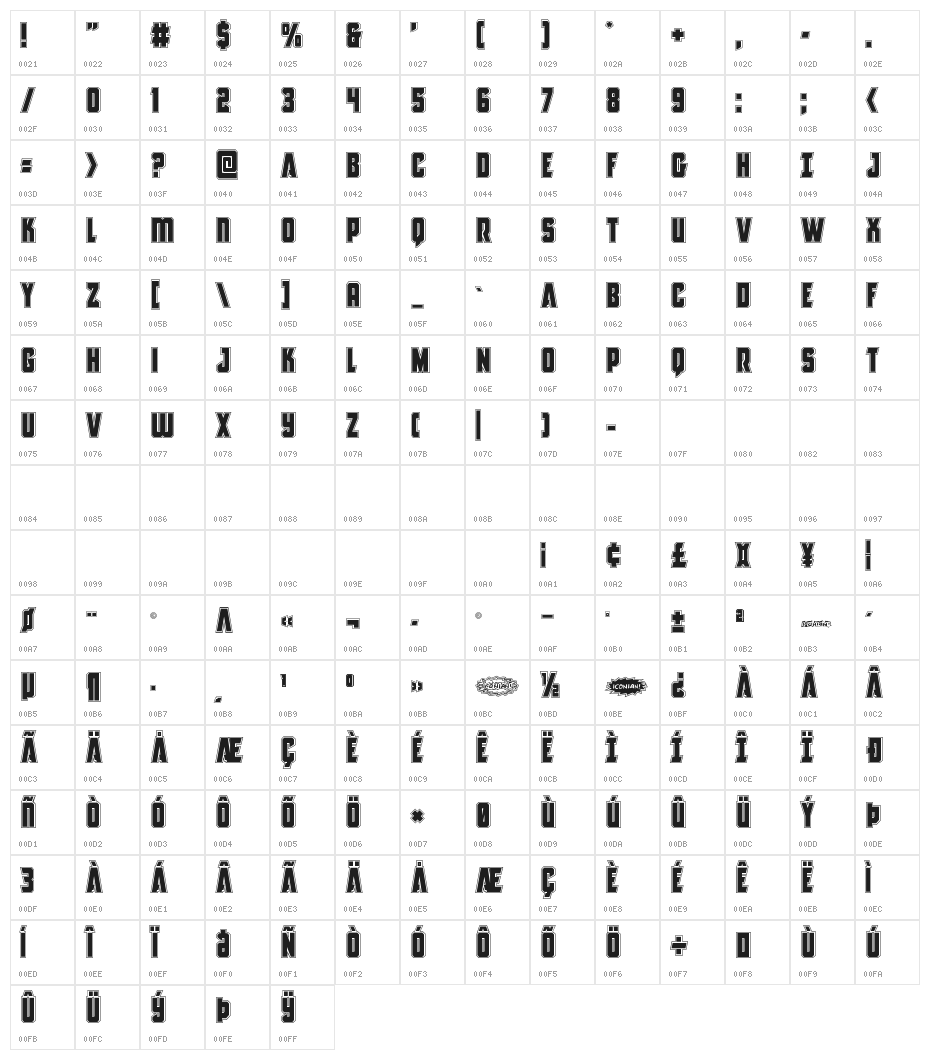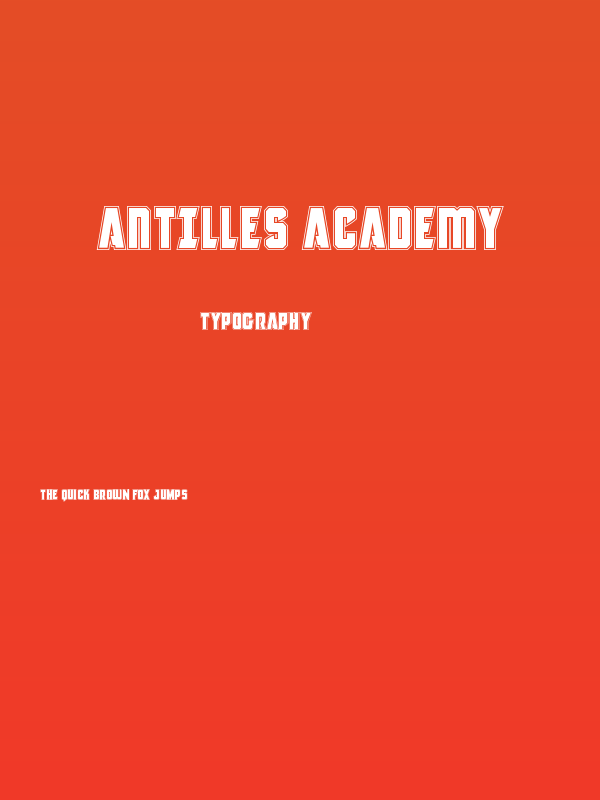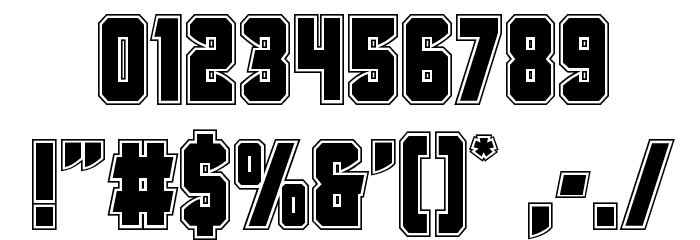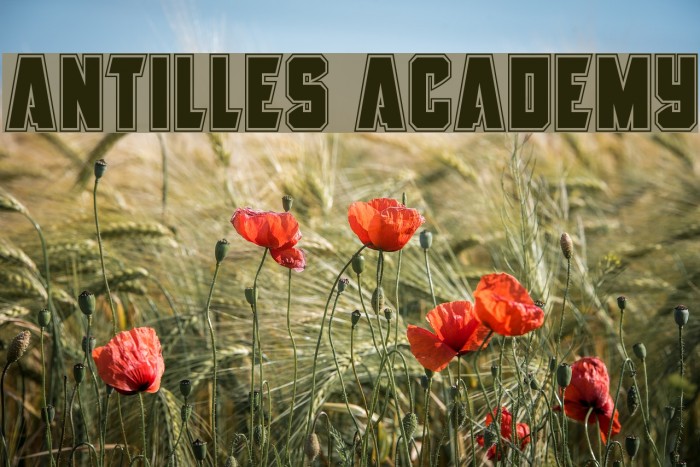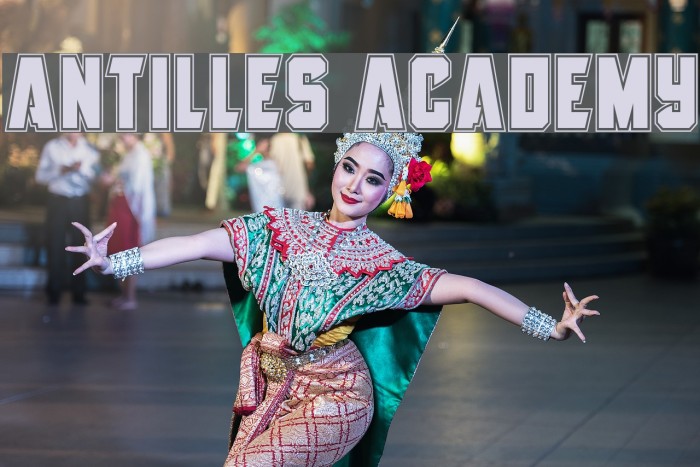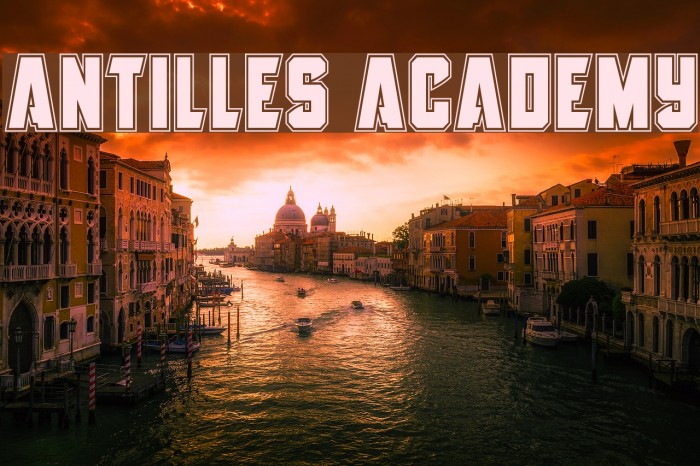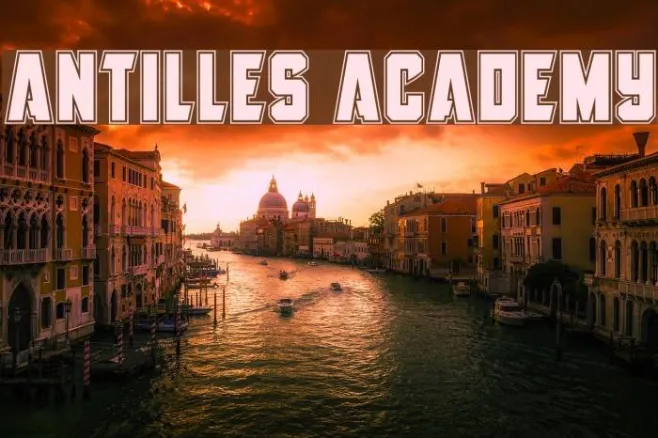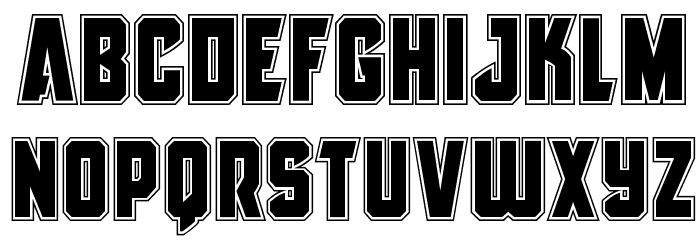
Antilles Academy Font
Antilles Academy Description
This font features a bold, impactful design with a strong presence. The characters are outlined with a thick border, giving them a three-dimensional appearance that stands out. The angular and geometric shapes of the letters convey a sense of strength and modernity, making it ideal for projects that require a commanding visual element. The uppercase letters are particularly striking, with consistent height and width that ensure readability even at smaller sizes. The numbers and special characters maintain the same bold style, ensuring a cohesive look across all text elements.
| Proposed Projects | Ideal for sports team logos, event posters, and branding materials that require a bold statement. |